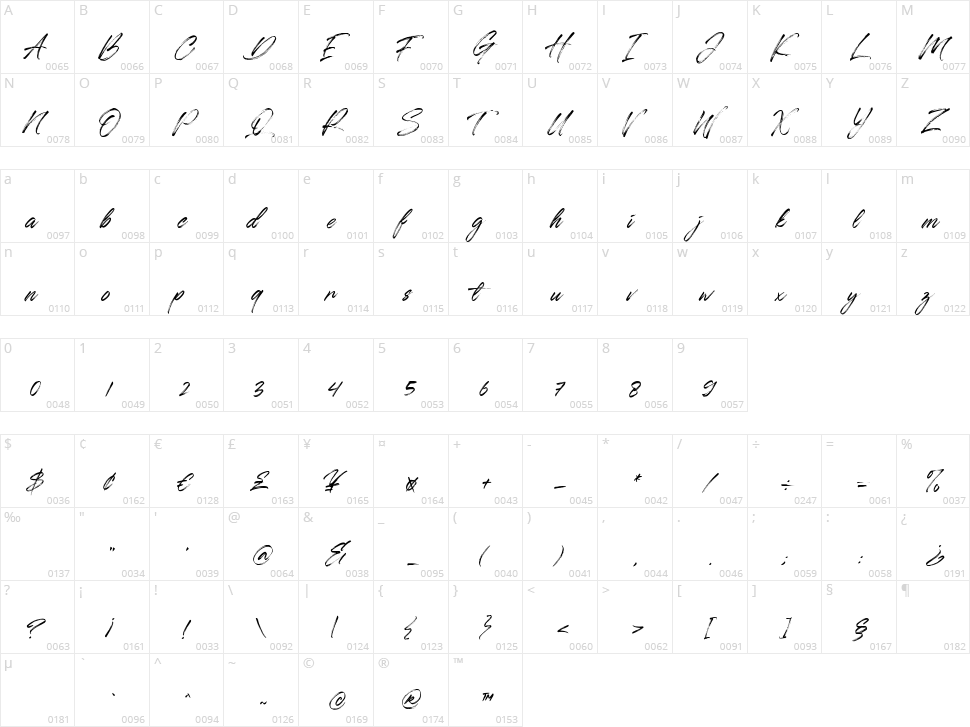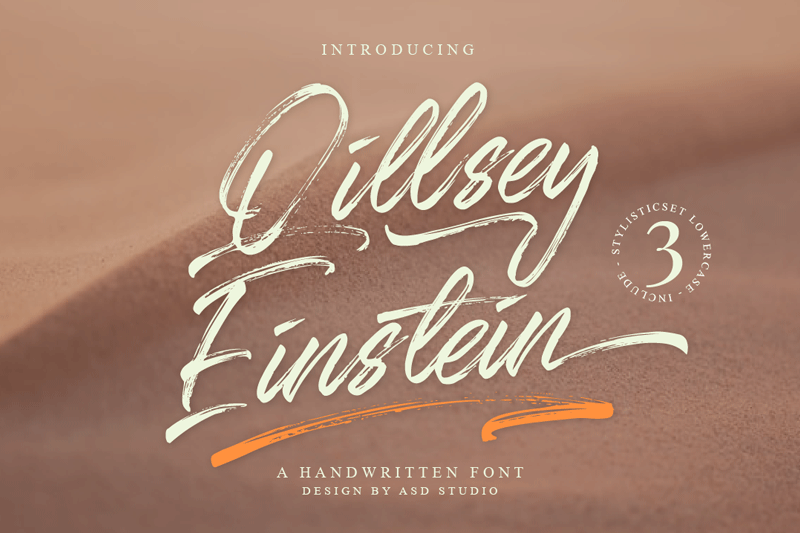
Qillsey Einstein
Introducing the new font Qillsey Einstein, a type of script that has a natural scratch texture. I made Qillsey Einstein by using a Japanese calligraphy pen that makes the impression seem natural. My font is complete with 3 pieces of StylisticSet which will make the writing more beautiful and charming.
This typeface is suitable for use in a variety of design fields, such as event advertisements, product promotions, book titles, activity titles, logos, adventure, and others. This font can when paired with serif font types will make your design project more beautiful and perfect.